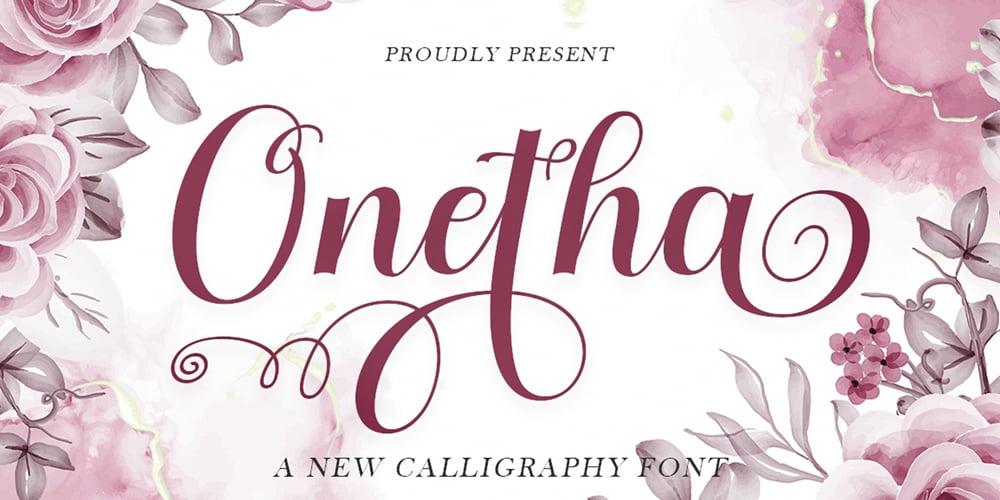
Onetha
Onetha font
Onetha Font Family was designed by khaidir and published by Gatype. Onetha contains 1 styles and family package options. Onetha is elegant calligraphy font. This font is casual and pretty with swashes. Can used for various purposes. such as logo, product packaging, wedding invitations, branding, headlines, signage, labels, signature, book covers, posters, quotes and more. Onetha features OpenType stylistic alternates, ligatures and International support for most Western Languages is included. To enable the OpenType Stylistic alternates, you need a program that supports OpenType features such as Adobe Illustrator CS, Adobe Indesign & CorelDraw X6-X7, Microsoft Word 2010 or later versions. Onetha is coded with PUA Unicode, which allows full access to all the extra characters without having special designing software. Mac users can use Font Book , and Windows users can use Character Map to view and copy any of the extra characters to paste into your favourite text editor/app.How to access all alternative characters, using Windows Character Map with Photoshop:https://www.youtube.com/watch?v=Go9vacoYmBwThanks so much for looking and Enjoy it!